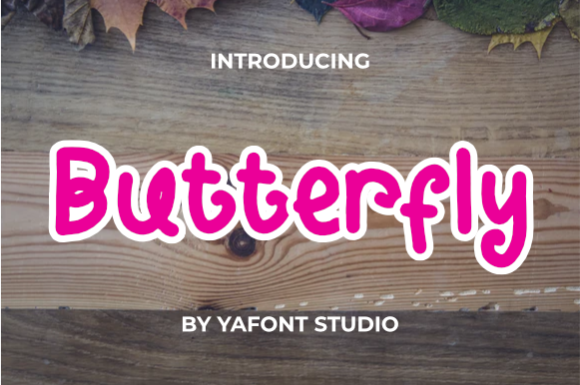
The Magical World of Butterfly Font: A Designer’s Delight
I still remember the time I was working on a branding project for a new boutique, and I was struggling to find the perfect font to capture the essence of the brand. The client wanted something elegant, yet playful, and I was on a mission to deliver. That’s when I stumbled upon the Butterfly Font, and it was love at first sight! 💕
Butterfly is a lovely and timeless handwritten font that has become a staple in my design toolkit. It’s the perfect choice for creating eye-catching logos, branding, and quotes that leave a lasting impression. Every letter has a unique and beautiful touch, which will make your design come alive!
- 💫 Unique and beautiful letterforms that add a touch of elegance to any design
- 🎨 Versatile and works well for a variety of design projects, from logos to quotes
- 🌈 Beautifully crafted to evoke a sense of whimsy and playfulness
- ⚠️ Some letters may require manual kerning for optimal spacing
- 🤔 Limited availability of certain OpenType features, such as ligatures
The Butterfly Font was designed with the intention of creating a beautiful and timeless handwritten font that would evoke a sense of whimsy and playfulness. The designer drew inspiration from the delicate wings of butterflies, aiming to capture the essence of their beauty and elegance.
Q: Is Butterfly Font suitable for body text?
A: While Butterfly Font is beautiful and elegant, it may not be the best choice for body text due to its script nature. It’s better suited for headings, titles, and quotes.